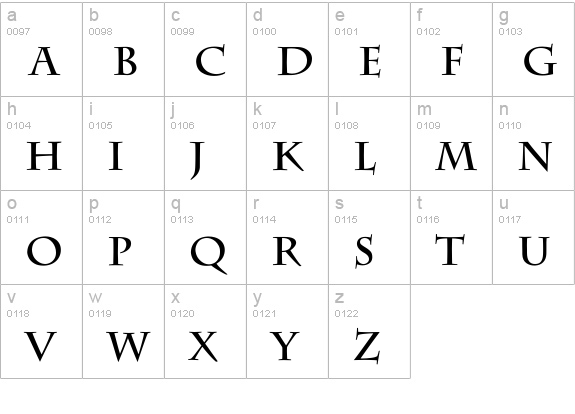
Charlemagne Bold Font Details
Charlemagne Bold is a strong, high-contrast variant in the Charlemagne typeface family \xE2\x80\x94 well suited to headlines, attention-grabbing titles, and strong calls-to-action.
Charlemagne Bold font is a striking and commanding typeface that exudes strength and sophistication. Its bold strokes and elegant curves make it perfect for creating eye-catching headlines, logos, and branding materials. This versatile font can be used for a wide range of design projects, adding a touch of timeless elegance to any layout. And the best part? Charlemagne Bold font is available for free download at FontsMarket.com. Get your hands on this stunning typeface today and elevate your designs with its powerful presence. Don't miss out on the opportunity to add Charlemagne Bold font to your font library for free!